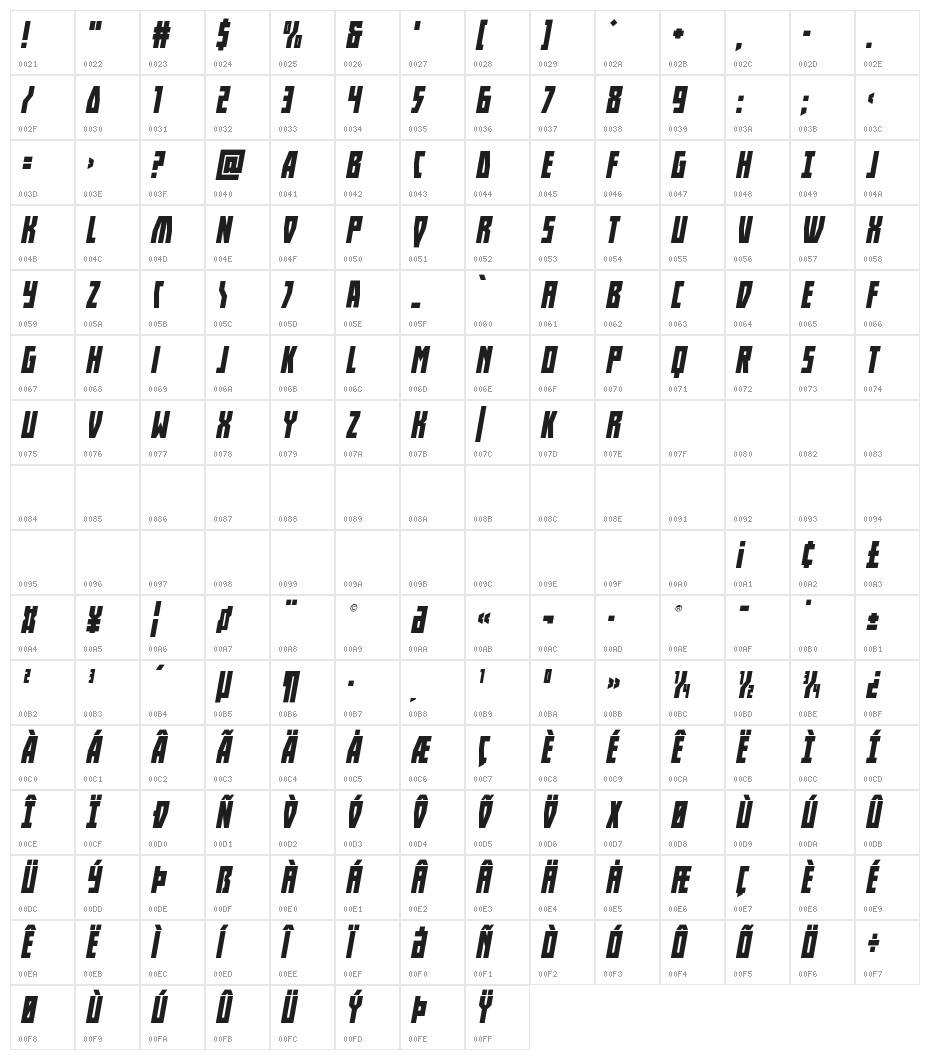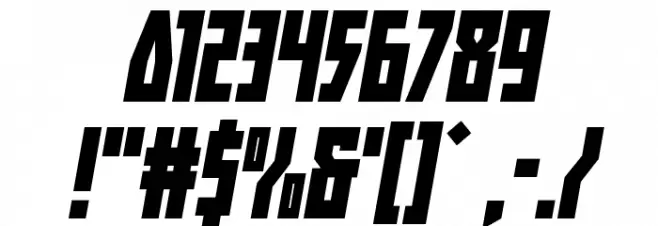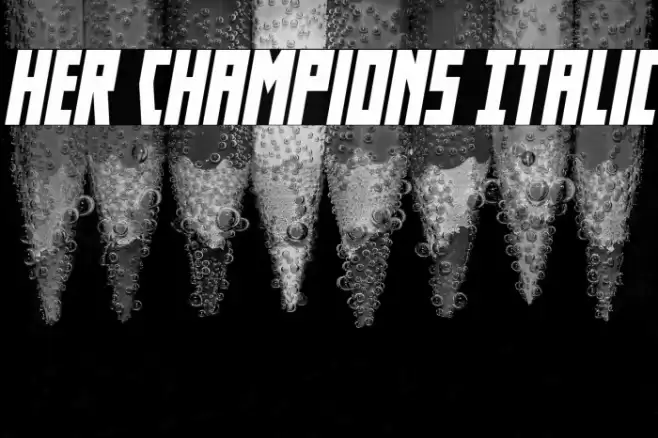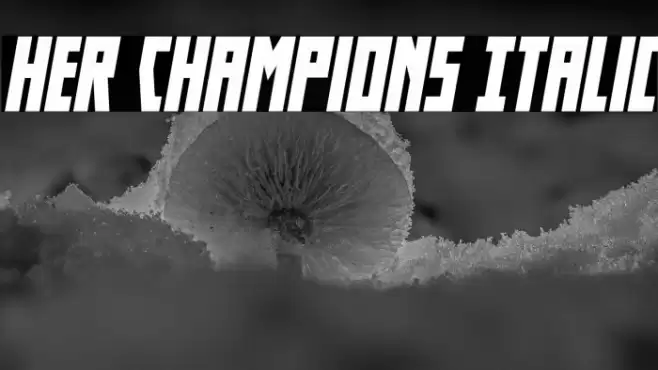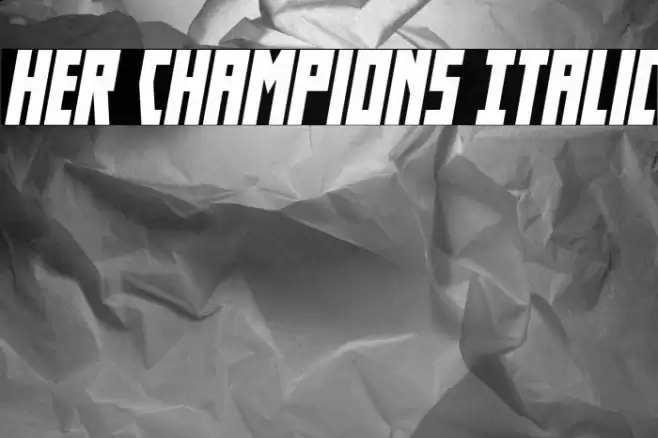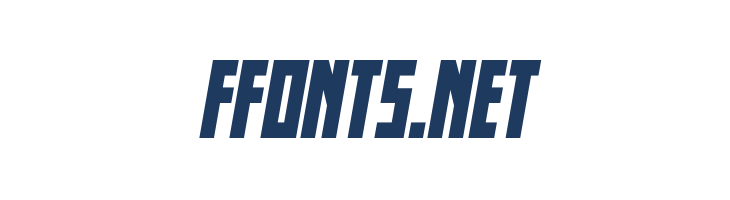
Her Champions Italic Font
Her Champions Italic Description
This font features a bold and dynamic style with a strong italic slant, giving it a sense of movement and energy. The characters are blocky and angular, with sharp edges and a geometric structure that conveys a modern and assertive look. The uppercase and lowercase letters maintain a consistent height, enhancing readability while preserving the font's distinctive style. The numerals and special characters are designed to match the boldness and angularity of the alphabet, ensuring a cohesive appearance across all text. This font is ideal for projects that require a striking and impactful visual presence.
| Proposed Projects | Ideal for sports branding, event posters, video game titles, and dynamic logo designs. |